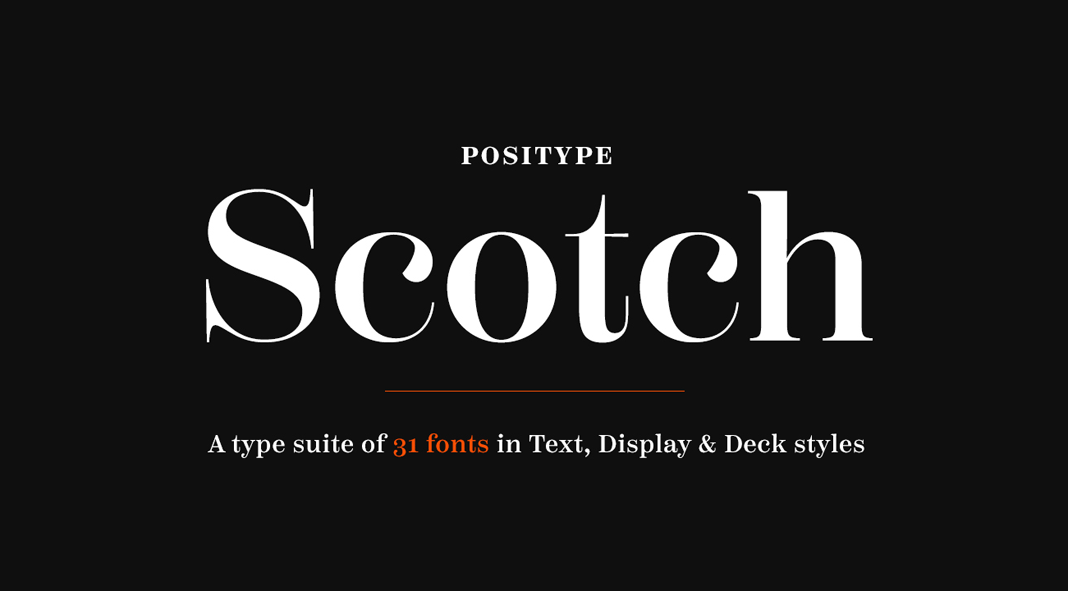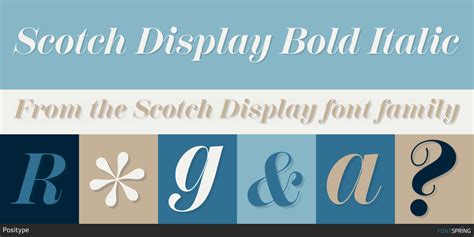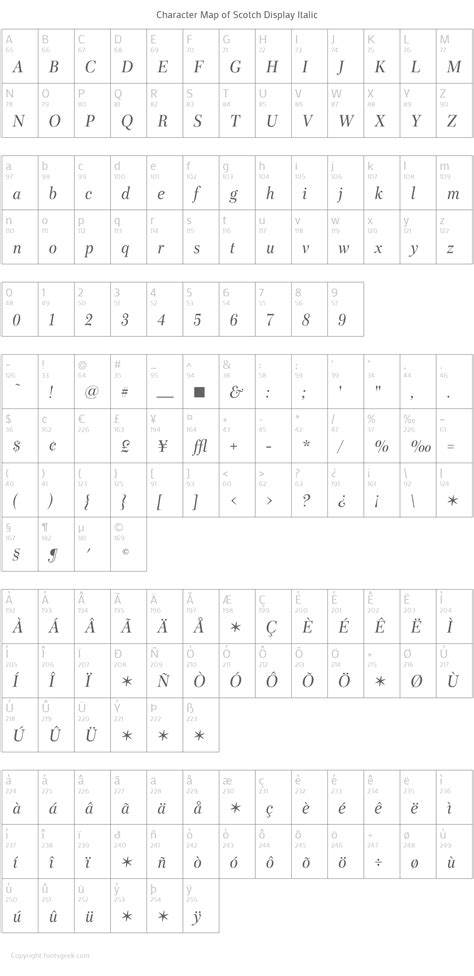
Scotch Display Font Family Free Download - Web explore scotch display designed by neil summerour at adobe fonts. A serif typeface with 39 styles, available from adobe fonts.
A serif typeface with 39 styles, available from adobe fonts. Web explore scotch display designed by neil summerour at adobe fonts.
Web explore scotch display designed by neil summerour at adobe fonts. A serif typeface with 39 styles, available from adobe fonts.
Web Explore Scotch Display Designed By Neil Summerour At Adobe Fonts.
A serif typeface with 39 styles, available from adobe fonts.